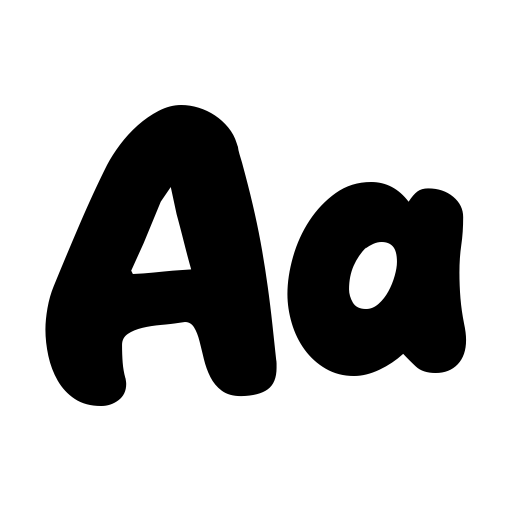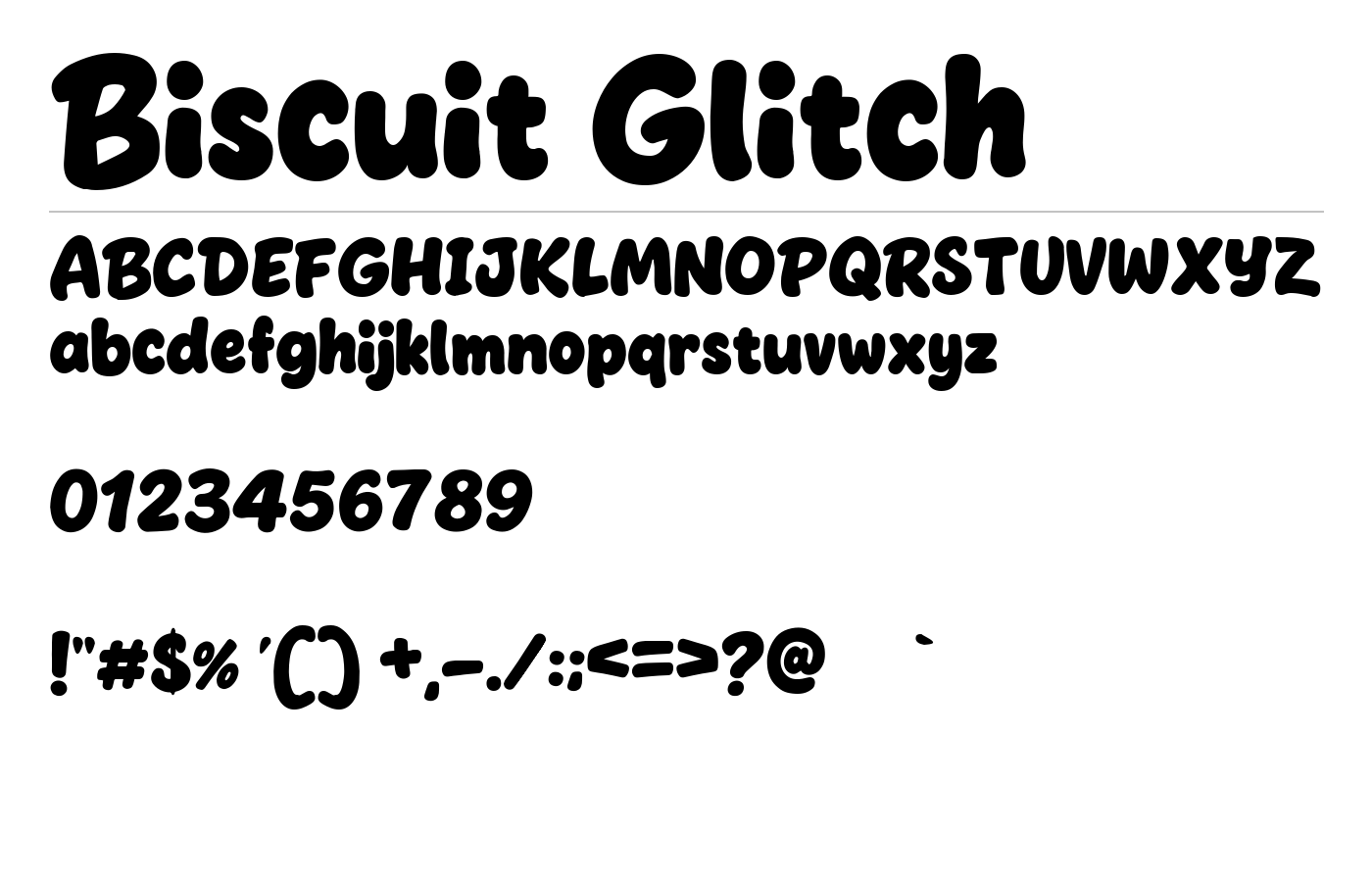
Biscuit Glitch is a bold, playful sans serif font with a chunky, hand-drawn feel that brings a fun and casual vibe to any design. Its rounded, uneven letterforms and slight "glitch" effects make it perfect for creative projects, children's branding, or informal headlines where personality and approachability are key. This font works best for eye-catching logos, posters, and websites aiming for a friendly and energetic look.
Biscuit Glitch Font
About Biscuit Glitch Font